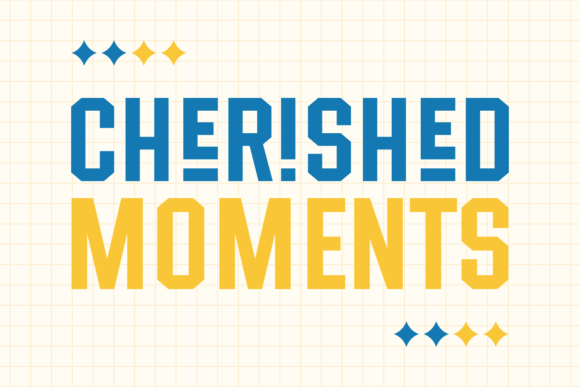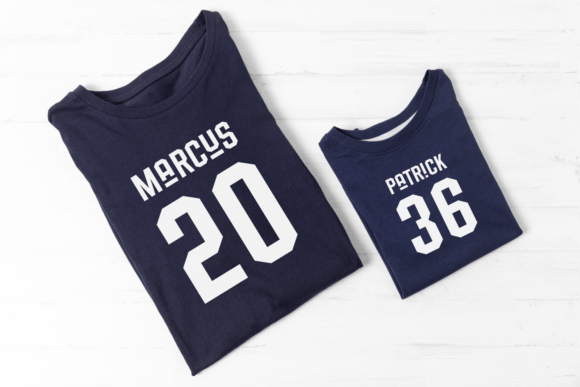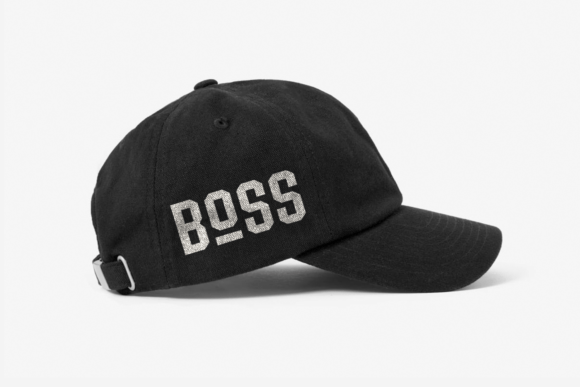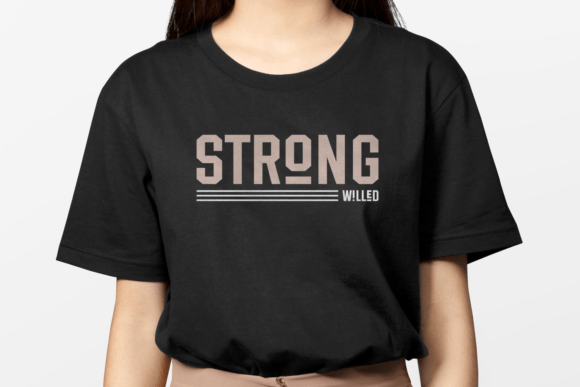
Leading College Font
Leading College is a cool and modern display font that gives your text a fresh, contemporary vibe. With its sleek design, it adds a touch of style to any project. Perfect for headings, banners, or any creative work, Leading College is your go-to choice for a trendy and eye-catching typography solution. Upgrade your design game with this modern font that effortlessly blends simplicity and sophistication.